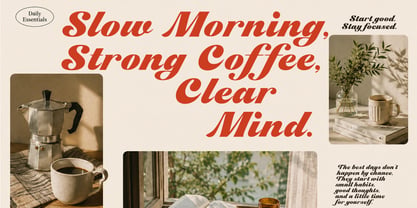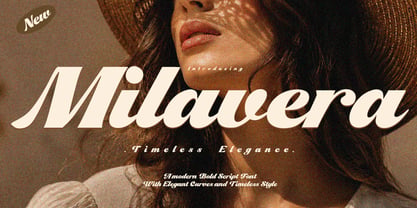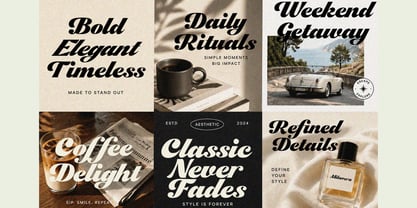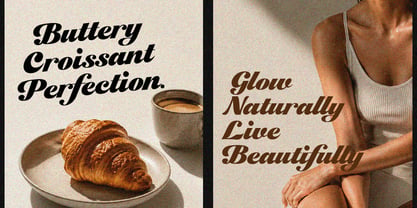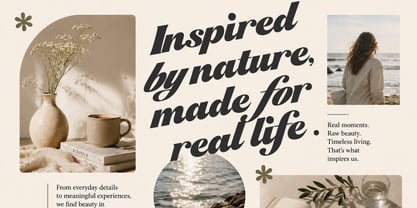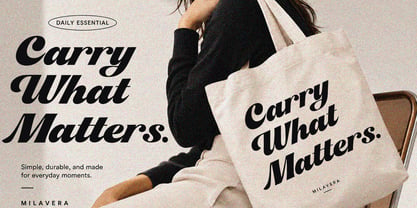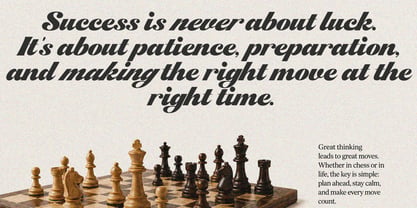
Milavera
by Cocodesign
The Milavera Font Family was designed by Muhammad Zaini and published by Cocodesign. Milavera contains 2 styles and family package options. More about this family
Milavera is a bold script typeface that seamlessly blends timeless elegance with a modern vintage touch. Featuring smooth flowing curves, confident strokes, and beautifully balanced letterforms, it offers a sophisticated aesthetic while ensuring excellent readability. This font is perfect for a variety of applications, including branding projects, luxury packaging, fashion editorials, cosmetic products, restaurant identities, wedding stationery, social media graphics, magazine headlines, logo design, product packaging, and premium marketing materials. Each character is meticulously crafted to evoke a natural handwritten appearance, making every word stylish, graceful, and impactful.